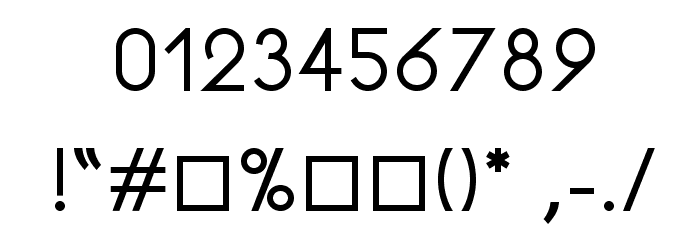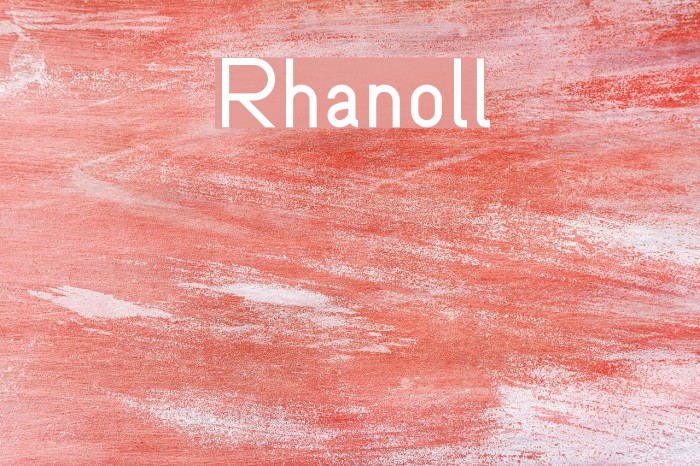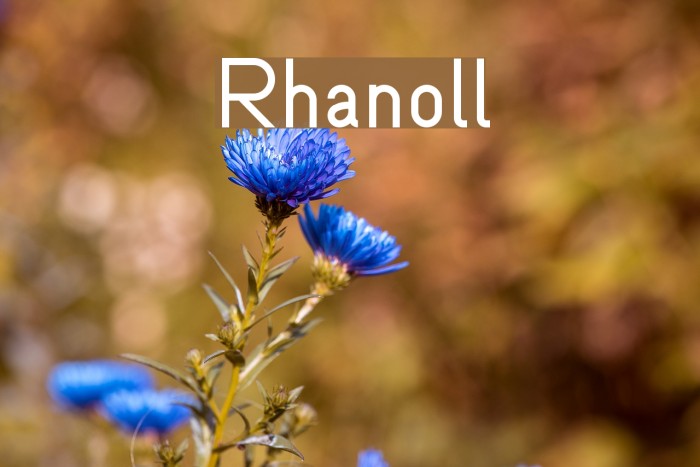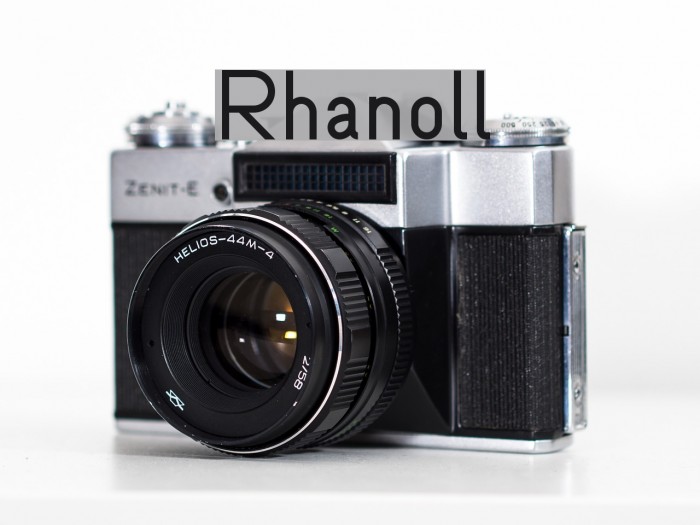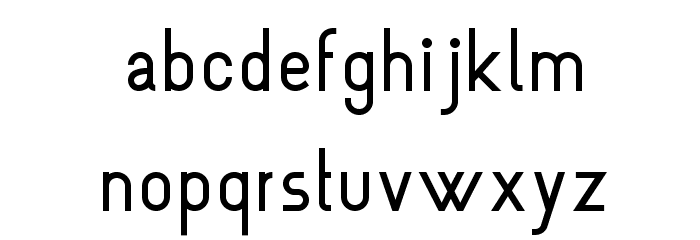
Rhanoll Font
This font features a clean and modern sans-serif design with a geometric structure. The characters are uniform in width, providing a balanced and harmonious appearance. The uppercase letters are bold and assertive, while the lowercase letters maintain a consistent height, enhancing readability. The numerals are clear and distinct, making them suitable for various applications. Special characters are well-defined, adding versatility to the font. The overall style is minimalist, making it ideal for contemporary design projects.
• Proposed Projects: Ideal for branding, web design, advertising, and editorial projects where a modern and clean aesthetic is desired.
• Category: Sans-Serif
• Overall Style: Modern
• Use Case: Headlines, Body text, Logos